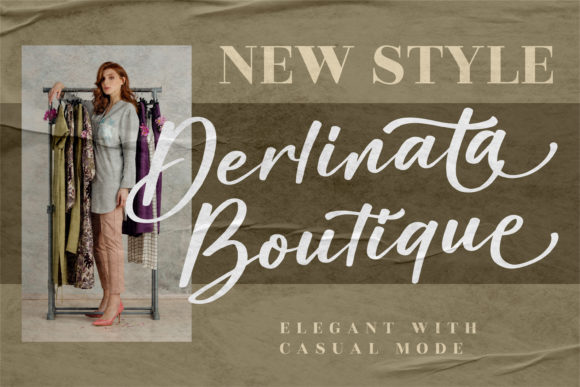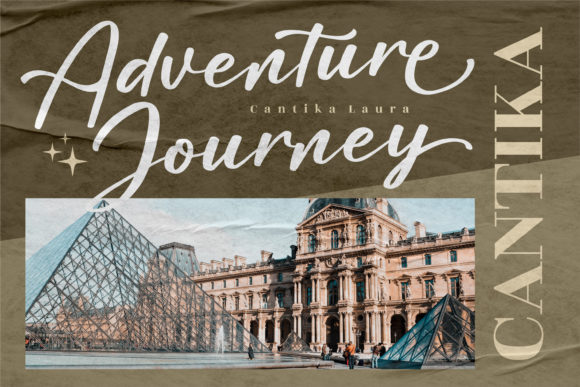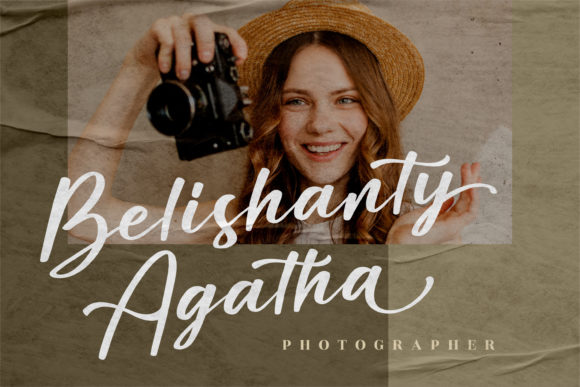
Introduction to Saturday Bright Font
Saturday Bright is a lovely and delicate script font that exudes elegance and class.
This font was particularly crafted for those who need a beautiful and refreshing look to their designs Saturday Bright is PUA encoded which means you can access all glyphs and swashes with ease.
Key Features of Saturday Bright Font
Why Choose Saturday Bright Font?
Saturday Bright Font offers exceptional quality and versatility, making it a valuable addition to your design toolkit. Whether you’re creating for personal projects or commercial use, Saturday Bright Font delivers professional results.